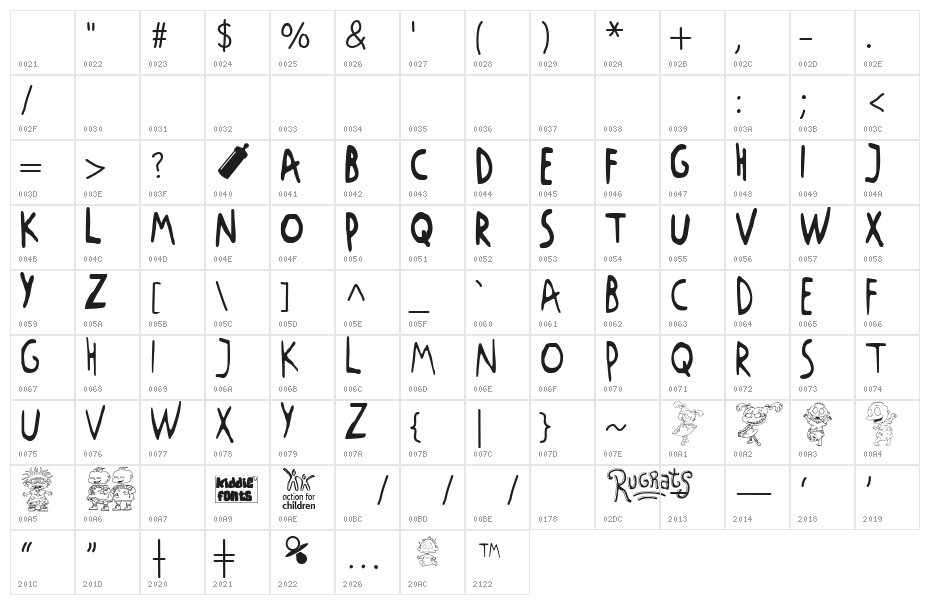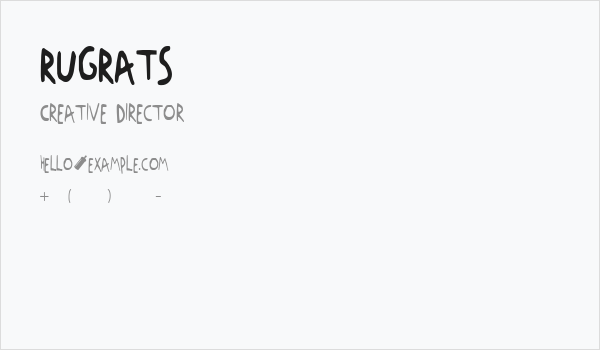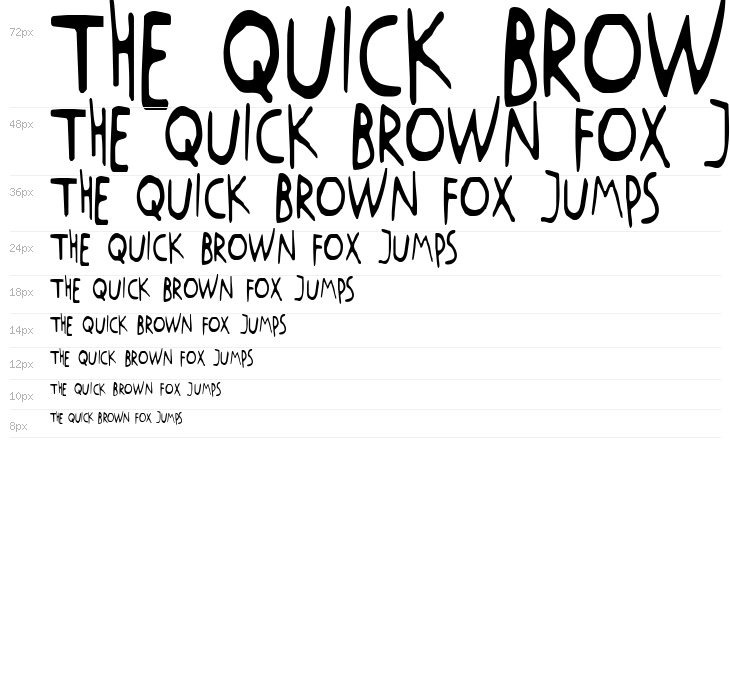
RUGRATS Font
RUGRATS Description
This playful and whimsical font features irregular, hand-drawn characters that evoke a sense of fun and creativity. The uppercase letters are bold and slightly uneven, giving them a dynamic and energetic appearance. The lowercase letters maintain the same playful style, with a slightly more condensed form. The numbers and special characters are consistent with the overall theme, adding to the font's quirky charm. This font is perfect for projects that require a youthful and informal touch, such as children's books, cartoons, or playful branding.
Overall StylePlayful, Whimsical
Use CaseHeadlines, Logos, Creative projects
Proposed ProjectsIdeal for children's books, cartoons, playful branding, and creative projects.